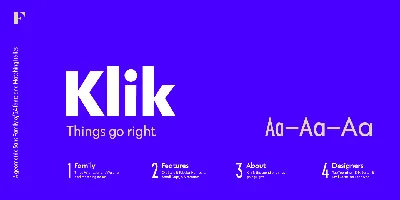
Klik Font
Klik Font is exceptionally versatile for modern design applications including sleek digital interfaces, contemporary logo designs, minimalist packaging solutions, clean website layouts, professional business cards, modern advertising materials, tech startup branding, innovative mobile app designs, and cutting-edge editorial layouts. Its crisp character makes it perfect for projects requiring clarity, precision, and contemporary appeal across both digital and print mediums.
What makes Klik Font exciting is its perfect fusion of geometric precision with humanistic warmth that creates an instantly approachable yet professional aesthetic. This innovative typeface features clean lines and carefully balanced proportions that ensure exceptional readability while maintaining distinctive personality. The font's modern character makes it ideal for brands seeking to communicate efficiency, innovation, and reliability to tech-savvy audiences who value both form and function.
Klik Font offers a comprehensive family collection including Thin, Light, Regular, Medium, Bold, and Black weights, complemented by matching Italic versions, Condensed styles, and Mono variants for coding applications. Each family member preserves the clean geometric core while providing different levels of visual weight and technical functionality to accommodate diverse creative needs and complex digital design systems.
Technology professionals and digital designers will find Klik Font to be an invaluable addition to their typography arsenal. This typeface demonstrates remarkable performance in both user interface applications and brand identity projects, ensuring consistent visual excellence across all digital platforms. Whether developing software interfaces, creating startup presentations, or designing responsive web applications, this font consistently delivers professional results that enhance user experience.
The Klik Font showcases meticulous attention to technical detail in every character construction, featuring optimized metrics that ensure perfect rendering across various screen resolutions and devices. Its comprehensive character set includes coding symbols, mathematical operators, and extensive multilingual support that makes it suitable for global technology projects. The font's precise spacing and kerning guarantee optimal legibility in both large displays and small mobile screens.
Design teams particularly appreciate Klik Font for its ability to communicate innovation and trustworthiness simultaneously. The typeface works exceptionally well for software companies, fintech startups, digital agencies, e-commerce platforms, and modern consulting firms. Its clean aesthetic resonates with professional audiences while its technical precision ensures reliable performance across all digital applications and platforms.
The systematic structure of Klik Font makes it particularly valuable for creating cohesive design systems and brand guidelines. Its distinctive yet neutral character creates strong brand recognition while maintaining excellent functionality across various contexts, from detailed mobile interfaces to large-scale digital billboards, ensuring consistent and professional brand communication across all technological touchpoints and user interactions.